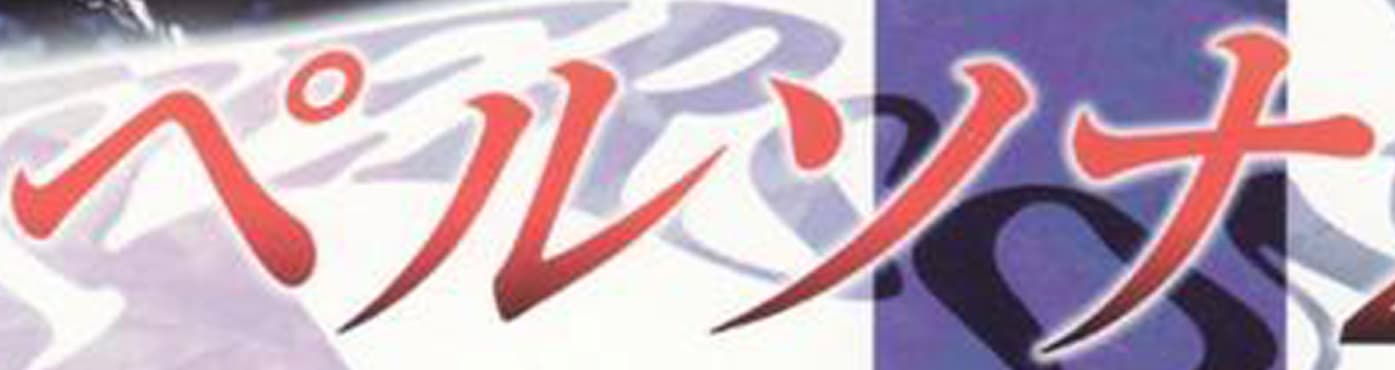
Can anyone help find the exact font used in this japanese logo. I’ve tried multiple automated image font idenftiers but I haven’t found the exact match. Help is much appreciated
Only character I think I recognise is ‘he’
Actually I think the circle above is ‘PE’
I think it’s it alright
This seemed to have similar properties … but I have ZERO knowledge of the language. I was going on visuals alone ![]()
I tried that font and it definitely looks similar but its not the same ![]()